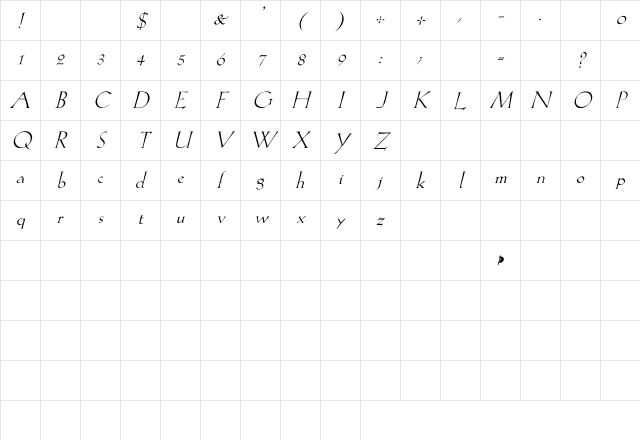
Lilith-Light iTLC Italic
Lilith-Light iTLC Family
Lilith-Light iTLC Italic
Design Context for Lilith-Light iTLC
Lilith-Light iTLC is a composed and adaptable typeface that performs quietly and consistently across a wide range of design contexts. The slanted form adds forward momentum and visual energy. Its slender proportions lend an understated elegance to any composition.